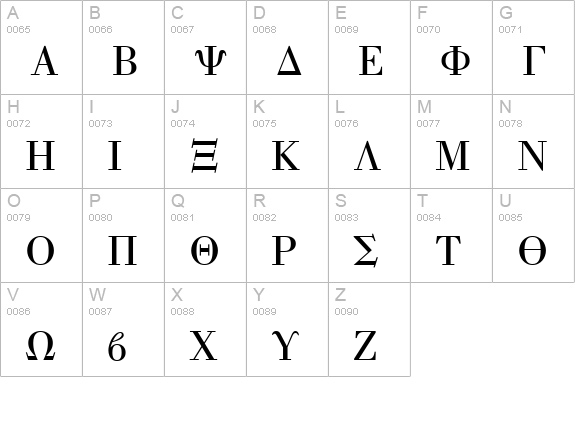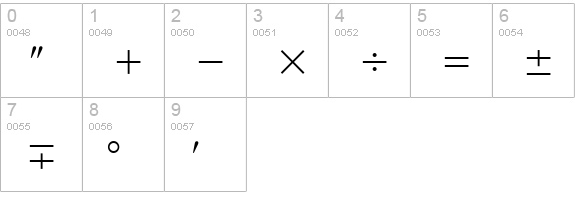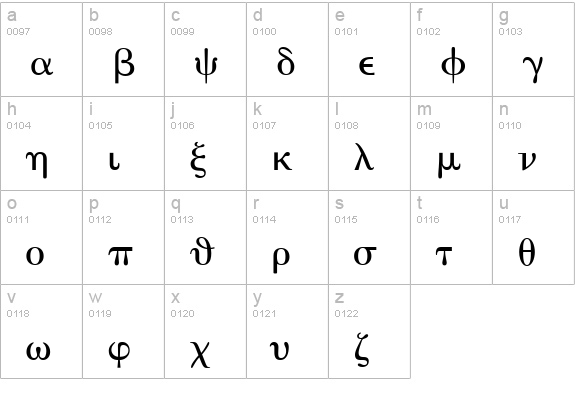
Introducing Quanta Pi Three SSi, a captivating and versatile font that seamlessly blends modernity with a touch of artistic flair. Designed with precision and creativity, this font is guaranteed to enhance any project, from graphic design to branding and everything in between. Quanta Pi Three SSi possesses an alluring aesthetic that captures attention at first glance. Its clean lines and geometric shapes exude a sense of sophistication and professionalism, making it perfect for a wide range of applications. Whether you're designing a sleek logo, crafting an eye-catching advertisement, or creating engaging social media graphics, this font will effortlessly elevate your work to new heights. One of the most remarkable aspects of Quanta Pi Three SSi is its versatility. Its wide range of weights and styles allows for endless possibilities, ensuring that you'll find the perfect fit for any project. From thin and elegant to bold and impactful, this font adapts effortlessly to your creative vision, enabling you to convey your message with clarity and style. And the best part? Quanta Pi Three SSi is available for free download at FontsMarket.com. Yes, you read that right – this exceptional font can be yours at no cost. Say goodbye to the limitations of expensive fonts and enjoy the freedom to use Quanta Pi Three SSi for all your personal and commercial projects without breaking the bank. So why wait? Unleash your creativity and download Quanta Pi Three SSi today. With its captivating design and the convenience of being freely available at FontsMarket.com, this font is a must-have addition to your typography collection. Elevate your designs, captivate your audience, and make a lasting impression with Quanta Pi Three SSi.